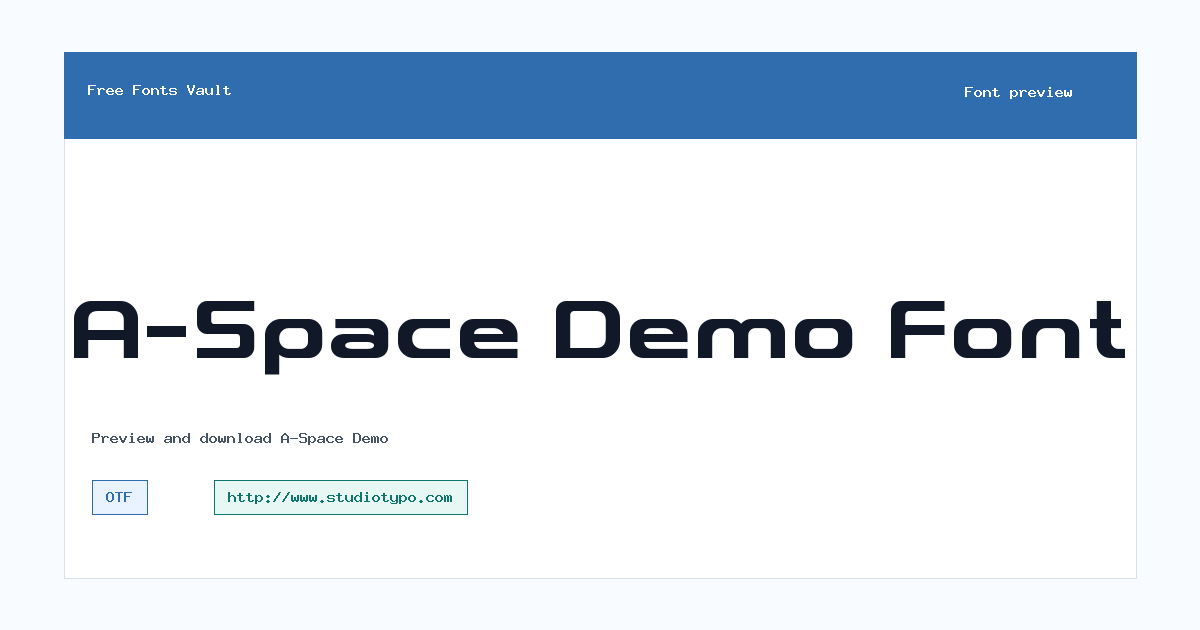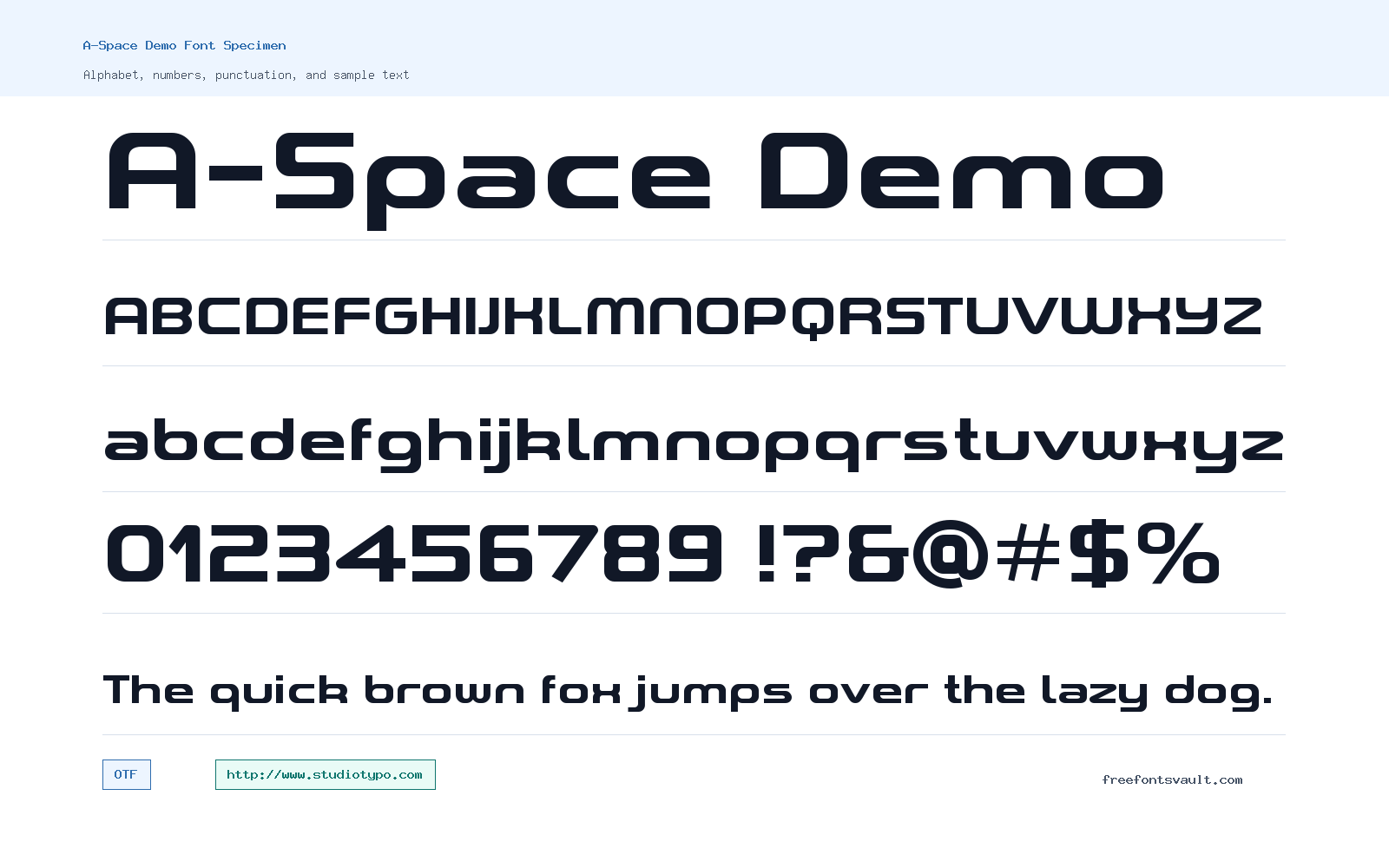
A-Space Demo
- Designer StudioTypo
- Foundry StudioTypo
A-Space Demo is a bold display font from StudioTypo, offered as an OTF file for testing headlines, titles, and short pieces of text.
About A-Space Demo
A-Space Demo is best approached as a strong, attention-focused font rather than a long-reading text face. The available file is a bold 700-weight OTF, so it naturally suits larger settings where the letter shapes can stand out. Use the preview box to test your own words, especially if your design depends on a specific brand name, poster title, channel header, or short phrase.
A-Space Demo should be tested with real project text, not only the default sample. Try a short title, a two-word label, a number-heavy line, and punctuation. Bold demo fonts can look strong in one phrase but need spacing adjustments when the text is longer or used inside a tight card, badge, or header.
- Bold 700-weight style for display use
- Bold demo cut that works best when the text is short and clearly spaced
- Posters, thumbnails, banners, and title graphics
- Short headings, logo drafts, and display mockups
- Concept previews, bold title mockups, promo graphics, and display-only layout tests
A-Space Demo is credited to StudioTypo, with StudioTypo also listed as the foundry.
Is A-Space Demo good for body text?
It is better for short display text. The available style is bold, so long paragraphs may feel heavy or tiring to read.
Who designed A-Space Demo?
The font is credited to StudioTypo.